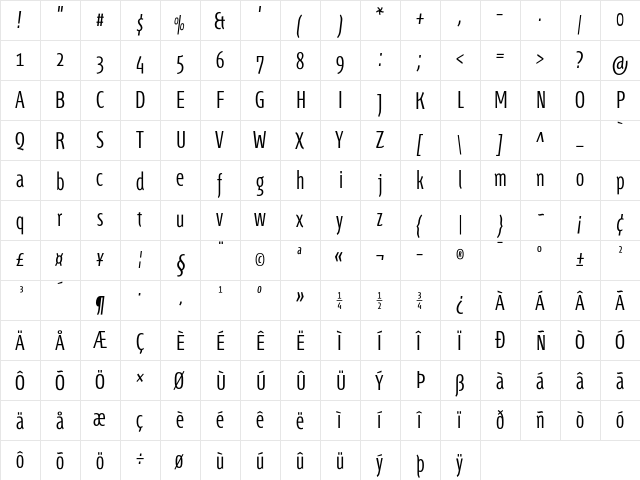
Fontana ND Ee OsF Light
Design Context for Fontana ND Ee OsF Typeface
Fontana ND Ee OsF offers clean, dependable letterforms without strong stylistic allegiance, making it a practical choice for designers who need flexibility. The delicate stroke weight brings airiness and refinement to layouts.